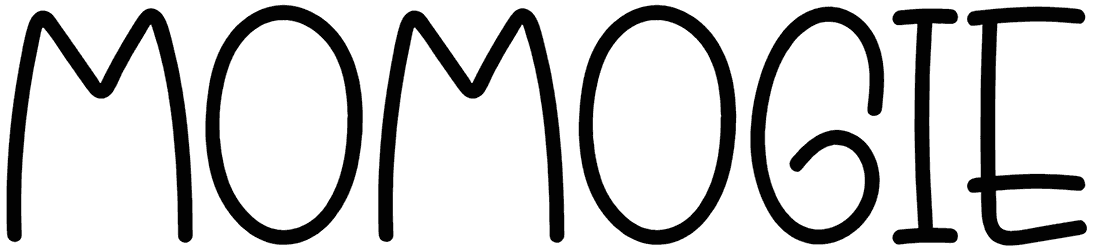
Momogie Font
Are you struggling to find a fun, playful handwritten font? So, let us show you Momogie with a cute, neat display and rounded corners. It conveys a sense of happiness and joy. This doodle font is great for cartoon posters, birthday invitations, social media, video games, and children’s storybooks. Choose it and make your design stand out from the competition.
Momogie is a cute and simple lettered handwritten font that can be used for all chalkboard quotes or teaching material! Its authentic look will add a personal and realistic feel to your designs.